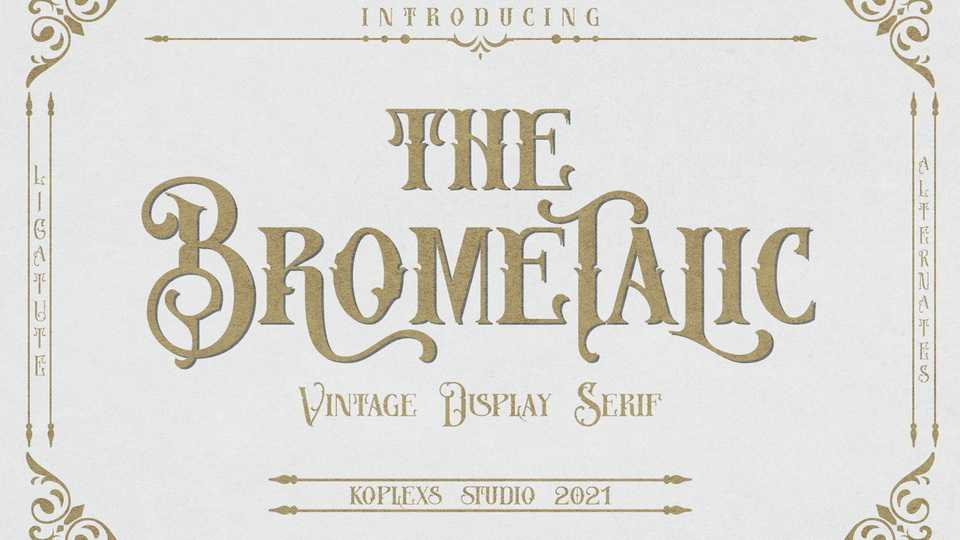
Download Brometalic font, a vintage display typeface that was born from an idea inspired by the classic Victorian vintage style combined with the western style which makes the font look dashing, cool and unique. Brometalic font is perfect for a bold, vintage Victorian concept design.
Designer: Koplexs Studio